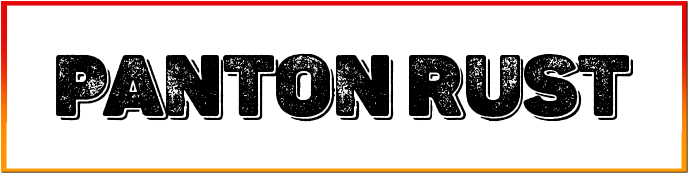
Panton Rust Bold Font
Panton Rust Bold Font Preview
Panton Rust Bold
Panton Rust Bold is a fancy font. Bold and full of character, it's built to stand out rather than blend in. The free download includes two styles, and you can try every one of them with your own text in the preview above.
Panton Rust Bold Font Details
- Font styles: 2 (Grunge Shadow and Grunge)
Where Panton Rust Bold Works Best
Think of Panton Rust Bold for posters, logos and eye-catching headlines. Use it for one standout word or headline and let simpler fonts handle the rest. Because the family has more than one style, you can mix them in a single design for headings, subheadings and highlights.